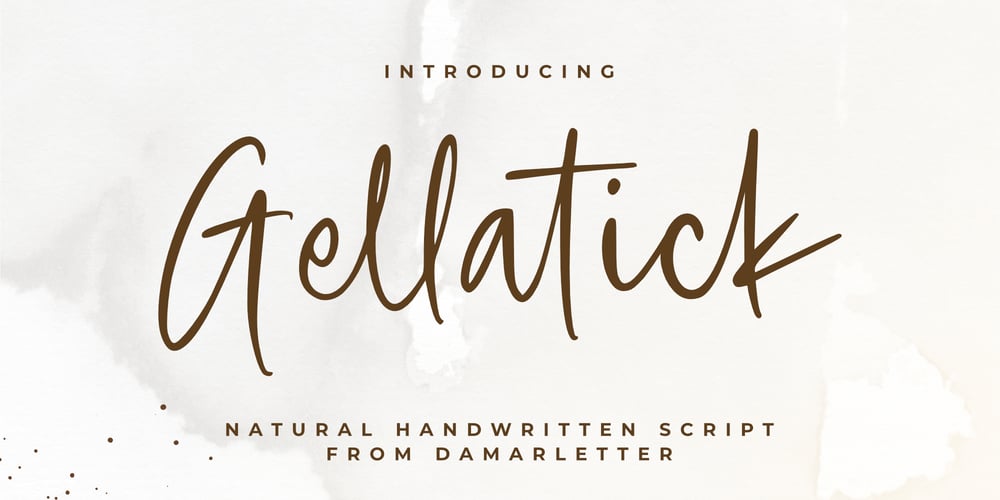
Gellatick
Gellatick font
Gellatick Font Family was designed by Ardian Nuvianto and published by Ardian Nuvianto. Gellatick contains 1 styles and family package options. Gellatick is a charming and whimsical script font that brings a delightful handwritten feel to any design. With its playful curves and bouncy letterforms, this font is perfect for adding a touch of joy and friendliness to your projects. Whether you’re designing greeting cards, invitations, or social media graphics, Gellatick will infuse your creations with a sense of warmth and personality.